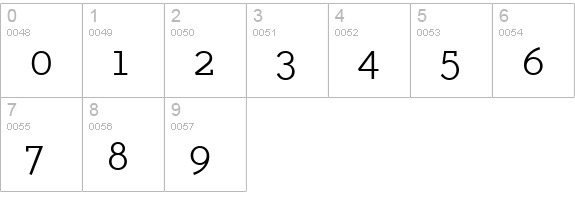
BacktalkSerif BTN SC is a captivating font that effortlessly merges elegance with a touch of modernity. This font is perfect for those seeking to add a sophisticated yet contemporary vibe to their designs. With its sleek, slender letterforms and refined serifs, BacktalkSerif BTN SC exudes a sense of refined style and subtle charm. What sets BacktalkSerif BTN SC apart is its versatility. Whether you're designing a wedding invitation, a branding project, or a sleek editorial layout, this font is sure to add a touch of class to any project. Its clean lines and balanced proportions make it easily readable, while its unique serifs add a touch of character and flair. But what truly sets BacktalkSerif BTN SC apart is the fact that it is freely available to download at FontsMarket.com. This means that you can bring this exceptional font into your creative arsenal without breaking the bank. Whether you're a professional designer or a passionate enthusiast, having access to a high-quality font like BacktalkSerif BTN SC at no cost is a game-changer. So why wait? Download BacktalkSerif BTN SC today and unlock a world of design possibilities. With its impeccable craftsmanship and effortless charm, this font is sure to elevate your projects and leave a lasting impression. Don't miss out on the opportunity to enhance your designs with this remarkable font – available for free at FontsMarket.com.